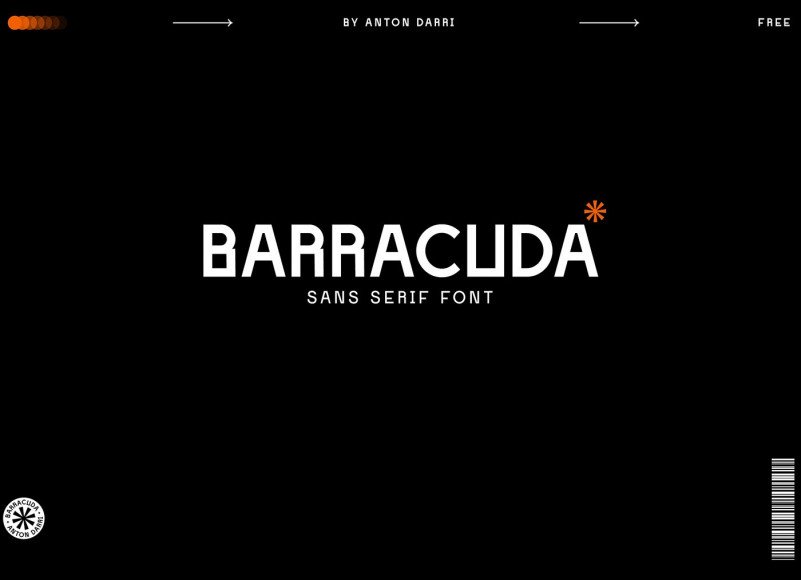
Barracuda Font
Barracuda is a cool, bold looking and techno inspired display typeface with characters and shapes contrasting in width, as close as possible to the basic geometric shapes (circle, square, triangle). The font is designed to break the rules and create a irregularity between the round and sharp shapes.
It can be a loud and proud hero or a humble supporting actor, upgrading your lay-outs in no time. Barracuda is available in 3 weights plus matching italics.